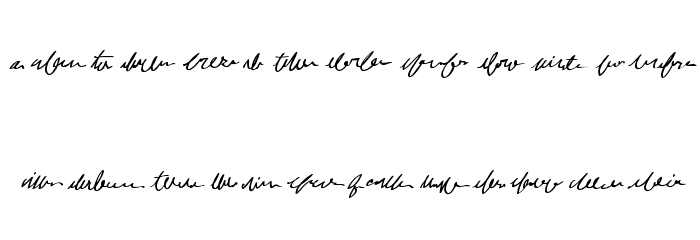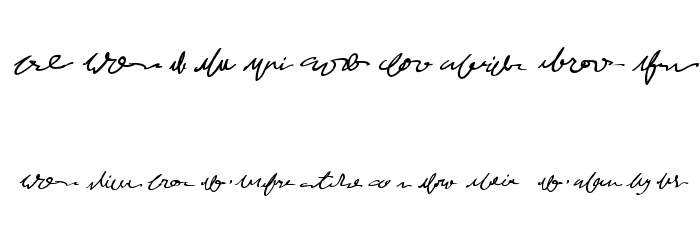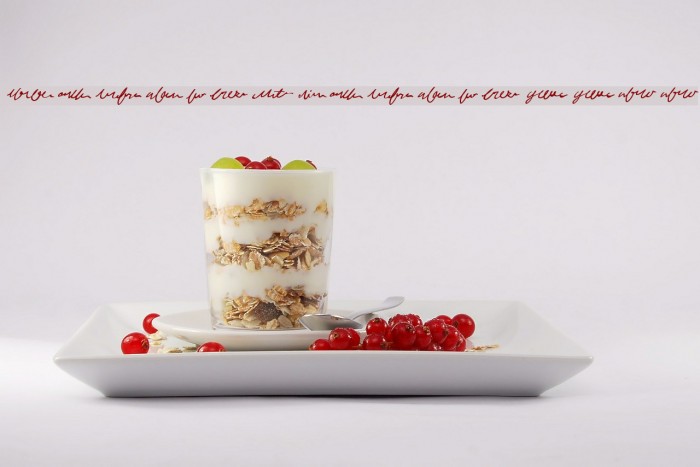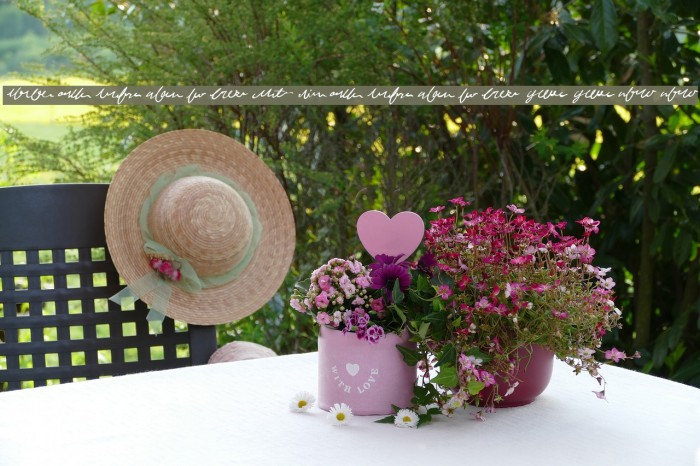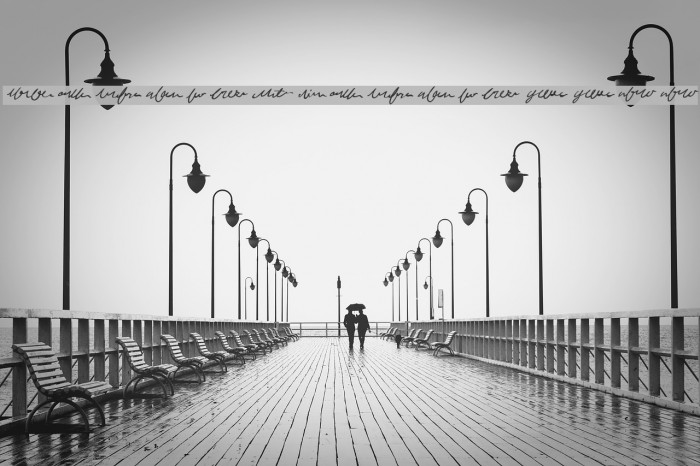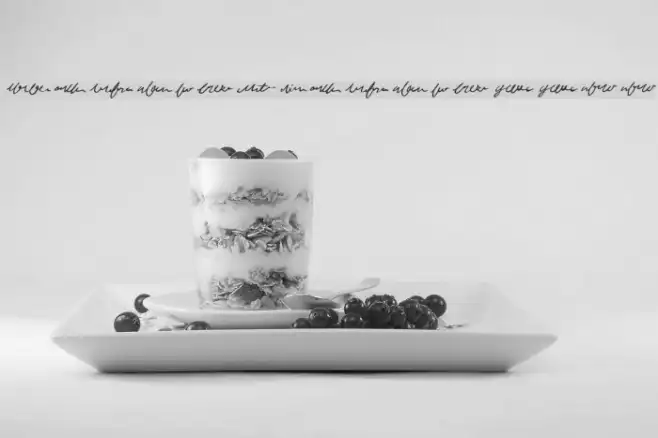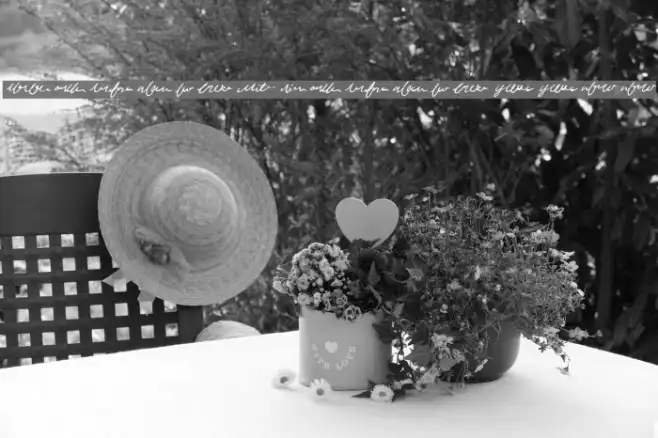
MumbleGrumbleIIBB Font
This font features a flowing, cursive style that mimics natural handwriting with a casual and artistic flair. The letters are interconnected with smooth, sweeping strokes, giving it an elegant and personal touch. The overall appearance is both sophisticated and approachable, making it suitable for projects that require a personal or intimate feel. The characters are slightly slanted, enhancing the handwritten effect, and the strokes vary in thickness, adding a dynamic and lively quality to the text. This font is ideal for creative projects where a human touch is desired.
A flowing, cursive font with an elegant, handwritten style.
- Proposed Projects: Ideal for wedding invitations, personal letters, greeting cards, and artistic branding.
- Category: Handwritten
- Character Spacing: Tight
- Use Case: Logos, Invitations, Personal correspondence